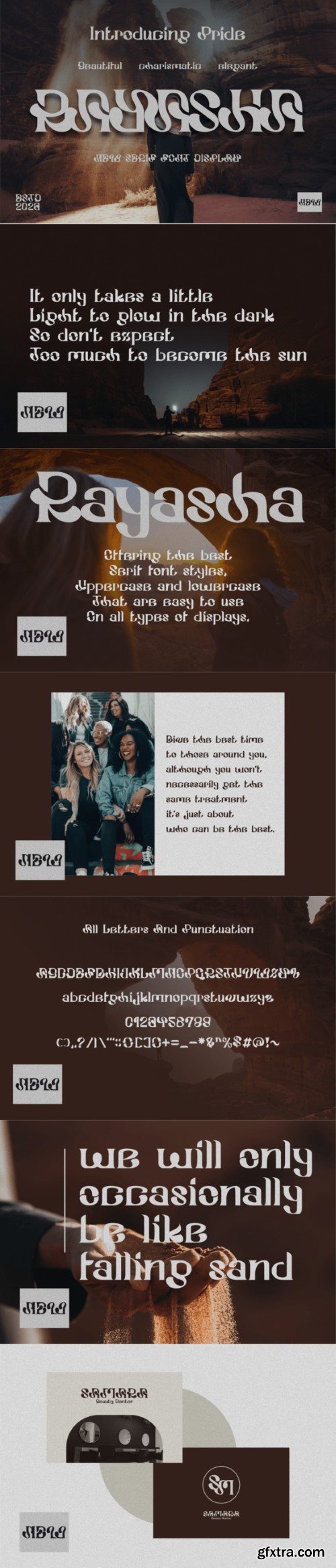
rayasha字体
Rayasha is a bold and authentic serif display font. The font is suitable for any branding project like logo, t-shirt printing, social media and so much more.